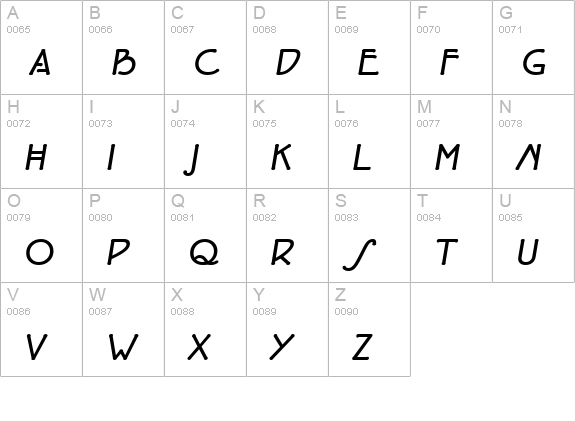
EaglefeatherFormalBoldItalic Font Details
EaglefeatherFormalBoldItalic is a stunning, elegant font that exudes sophistication and class. Its bold and italic design adds a touch of flair and uniqueness to any project or design. The carefully crafted curves and sharp edges of each letter make it a truly eye-catching choice for both print and digital media. This font is perfect for formal invitations, event posters, luxury branding, and any design that requires a touch of elegance and professionalism. Its versatility allows it to be used in a wide range of projects, from high-end fashion magazines to corporate presentations. One of the best things about EaglefeatherFormalBoldItalic is that it is completely free to download at FontsMarket.com. This means that you can add this beautiful font to your collection without worrying about any costs. With just a few clicks, you can enhance your designs and create a lasting impression on your audience. Whether you are a professional designer or someone who simply enjoys experimenting with different fonts, EaglefeatherFormalBoldItalic is a must-have in your font library. Its bold and italic style adds a touch of elegance and sophistication to any project, making it a perfect choice for those who want to stand out from the crowd. So why wait? Head over to FontsMarket.com and download EaglefeatherFormalBoldItalic today. And remember, this font is completely free, so you can enjoy its beauty without breaking the bank. Elevate your designs and make a lasting impression with EaglefeatherFormalBoldItalic.